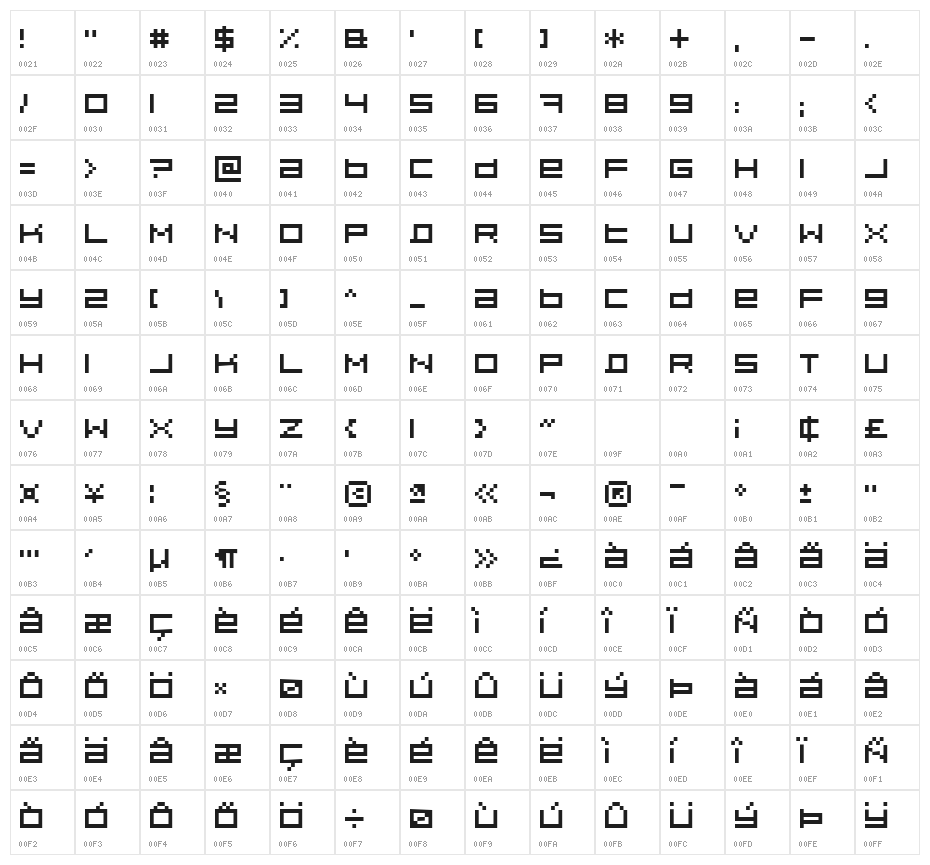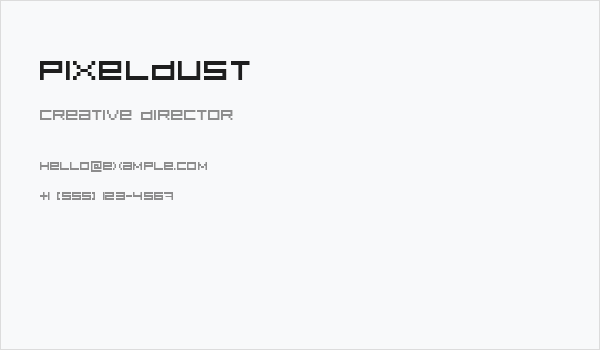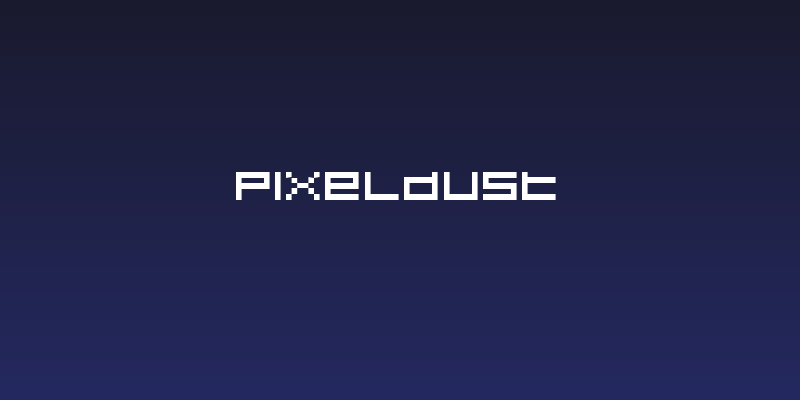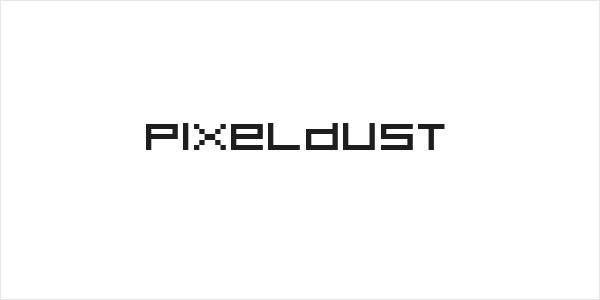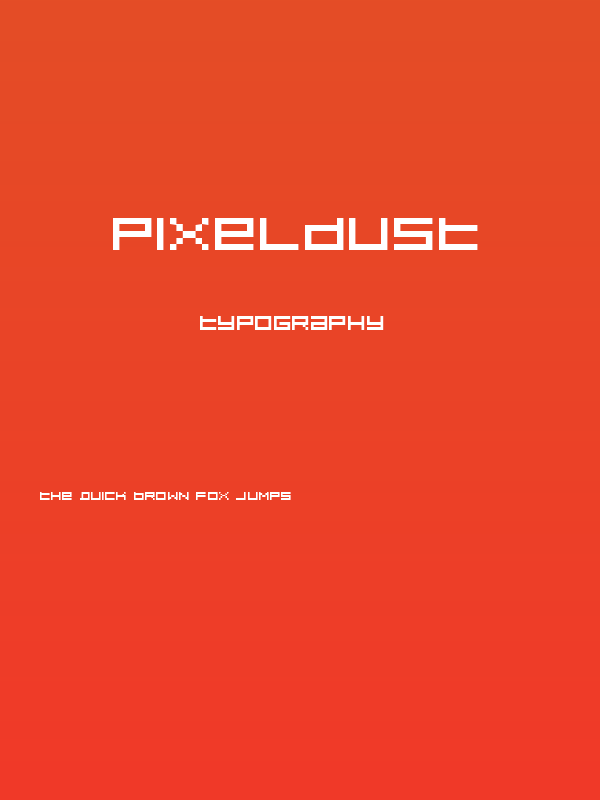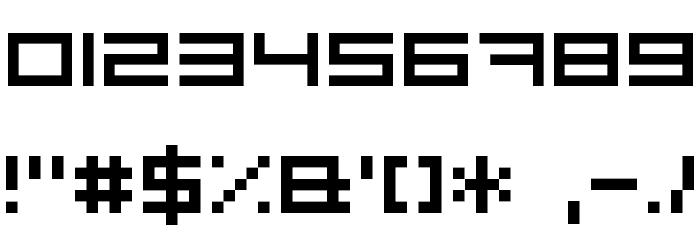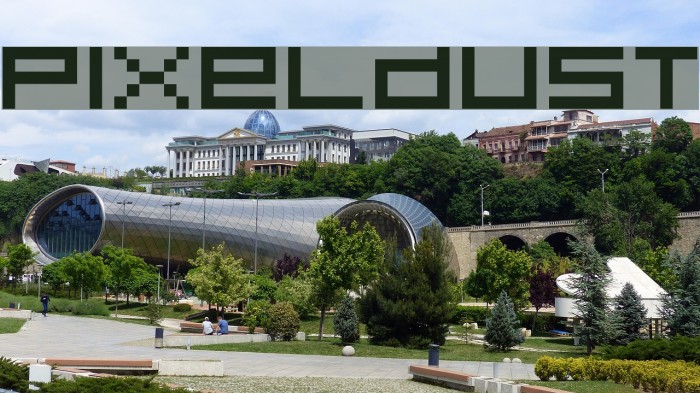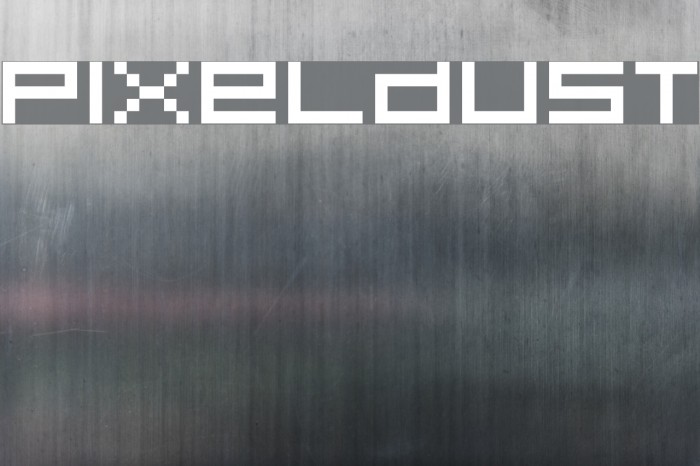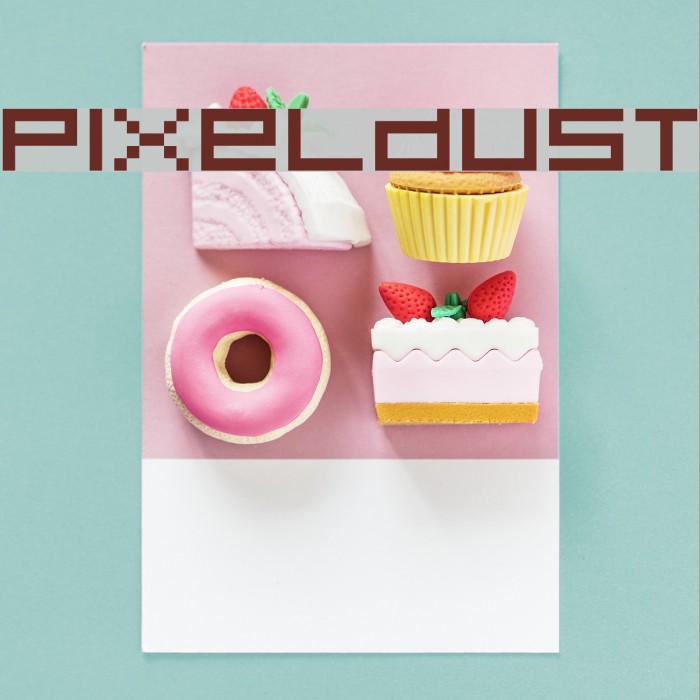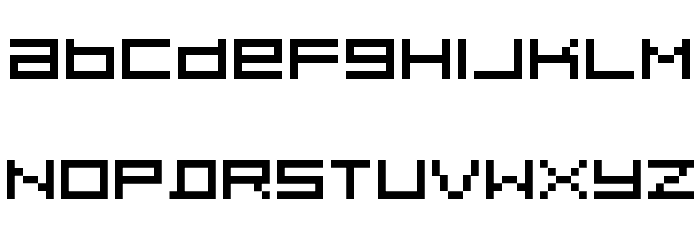
Pixeldust Font
Pixeldust Description
This font features a pixelated, blocky design reminiscent of early digital displays and video game graphics. Each character is constructed with a grid-like precision, giving it a distinctly retro and digital aesthetic. The uniformity in character height and width contributes to its monospaced appearance, making it ideal for coding and digital interfaces. The font's geometric structure is consistent across uppercase, lowercase, numbers, and special characters, maintaining a cohesive look. Its simplicity and clarity make it highly legible, even at smaller sizes, while the pixelated style adds a nostalgic charm.
| Overall Style | Retro |
| Use Case | Digital interfaces, Coding, Retro designs |
| Proposed Projects | Ideal for retro video game designs, digital art projects, coding interfaces, and tech-themed branding. |